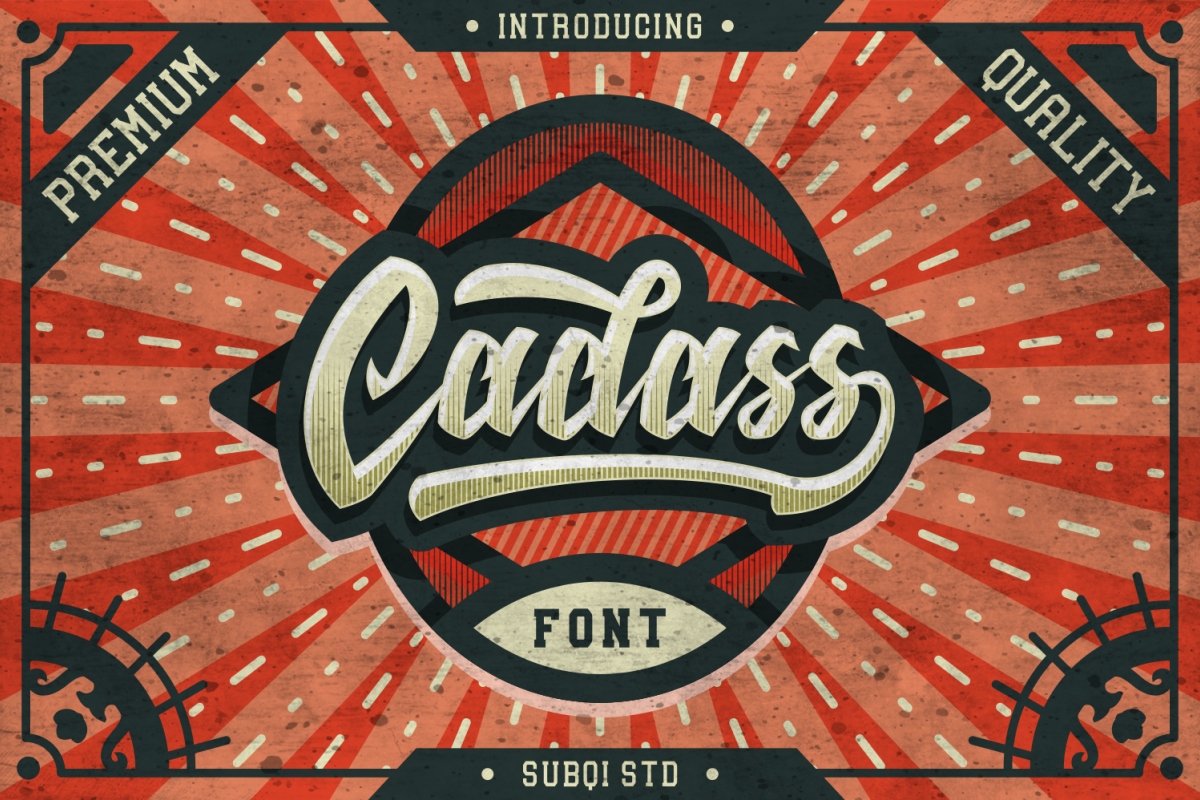
Cadass Serif
Cadass.
Hi Everyone !.. Let us Introduce our very first font ever made. It's called Cadass Script Font , It's included Script as main font and Serif version for display companion. This font inspired by Vintage Label design. But still can be used for modern style purpose. Perfect for logotype, label design. poster, flyer, display and many more.
370+ Total Glyphs
Standard Character ( Uppercase, Lowercase, Numeric, Punctuation )
Multilingual Support
Ligatures
Alternates Character
Extra Swashes ( as Alternate )